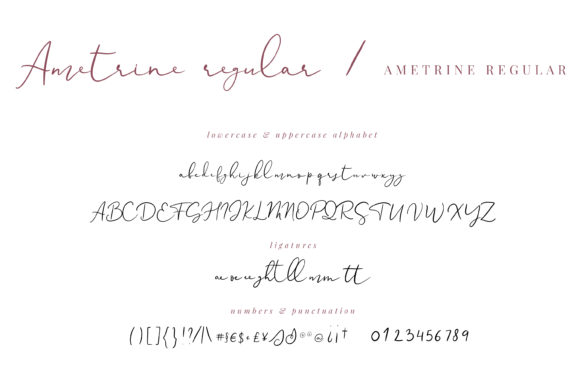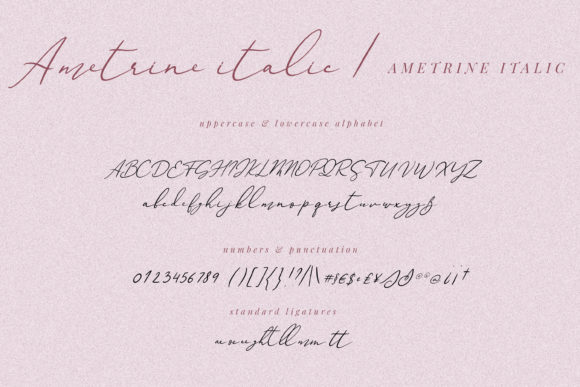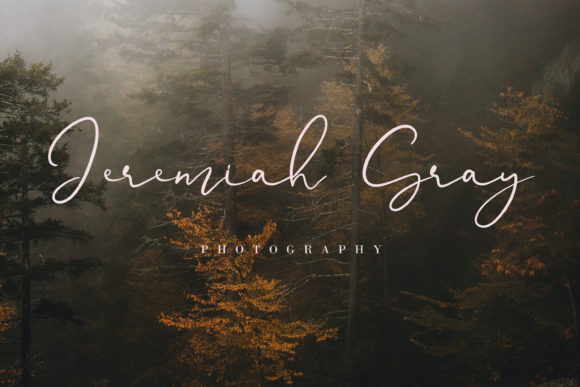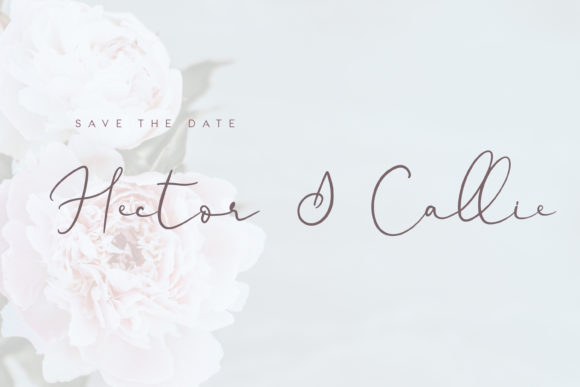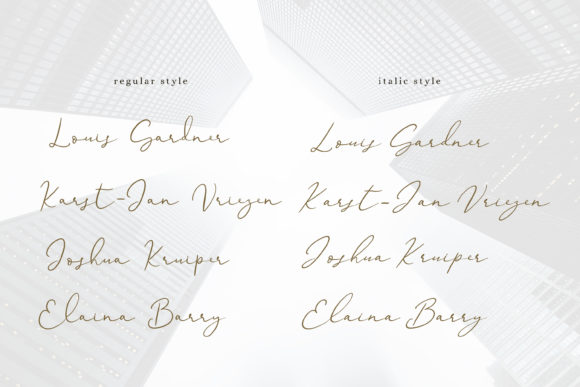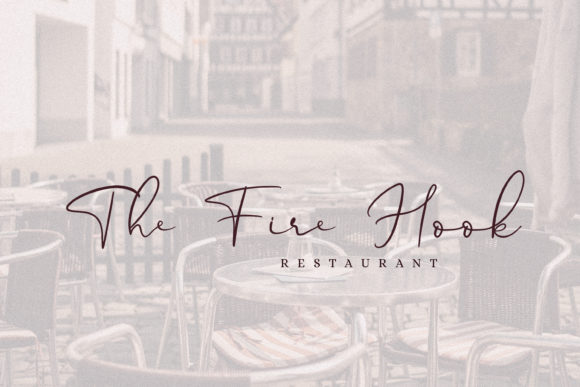
Ametrine Font: The Perfect Handcrafted Style for Your Design Projects
Ametrine font is a stunning super-casual style font that boasts an authentic handcrafted feel. Its unique and charming design makes it an ideal choice for a wide variety of projects, from creative crafts to digital designs. In this article, we’ll dive into the world of Ametrine font, exploring its features, benefits, and uses, and why it’s a must-have for designers and crafters alike.
The Charm of Ametrine Font
Ametrine font is a beautiful, handcrafted-style font that exudes a sense of warmth and personality. Its super-casual design makes it perfect for projects that require a friendly and approachable tone. The font’s authentic handcrafted feel gives it a unique and distinctive look that sets it apart from other fonts. Whether you’re working on a creative craft project or a digital design, Ametrine font is sure to add a touch of charm and character to your work.
Features of Ametrine Font
Ametrine font comes with a range of features that make it an excellent choice for designers and crafters. Some of its key features include:
- Handcrafted style: Ametrine font boasts an authentic handcrafted feel that gives it a unique and distinctive look.
- Super-casual design: The font’s super-casual design makes it perfect for projects that require a friendly and approachable tone.
- Versatility: Ametrine font is suitable for a wide variety of projects, from creative crafts to digital designs.
- Easy to read: The font is easy to read, making it perfect for body text and other written content.
Benefits of Using Ametrine Font
There are many benefits to using Ametrine font in your design projects. Some of the key benefits include:
- Unique and distinctive look: Ametrine font’s handcrafted style gives it a unique and distinctive look that sets it apart from other fonts.
- Flexibility: The font is suitable for a wide variety of projects, making it a great addition to any designer’s toolkit.
- Easy to use: Ametrine font is easy to use and can be easily integrated into your design projects.
- High-quality design: The font is designed to high standards, ensuring that it looks great in any design.
Uses of Ametrine Font
Ametrine font is a versatile font that can be used in a wide variety of projects. Some of the most popular uses for the font include:
- Creative crafts: Ametrine font is perfect for creative craft projects, such as handmade cards, gift tags, and other paper crafts.
- Digital designs: The font is also suitable for digital designs, such as social media graphics, blog posts, and website designs.
- Signage: Ametrine font can be used for signage, such as store signs, event signs, and other types of display text.
- Packaging: The font can also be used for packaging, such as labels, stickers, and other types of packaging materials.
Tips for Using Ametrine Font
Here are some tips for using Ametrine font in your design projects:
- Use it for body text: Ametrine font is easy to read, making it perfect for body text and other written content.
- Experiment with different sizes: The font looks great in a range of sizes, from small to large.
- Pair it with other fonts: Ametrine font can be paired with other fonts to create a unique and interesting design.
- Use it for headlines: The font’s bold and eye-catching design makes it perfect for headlines and other display text.
Ametrine font is a beautiful and versatile font that is perfect for designers and crafters alike. Its handcrafted style and super-casual design make it a great choice for a wide variety of projects, from creative crafts to digital designs. With its ease of use, high-quality design, and unique and distinctive look, Ametrine font is a must-have for anyone looking to add a touch of charm and character to their design projects.